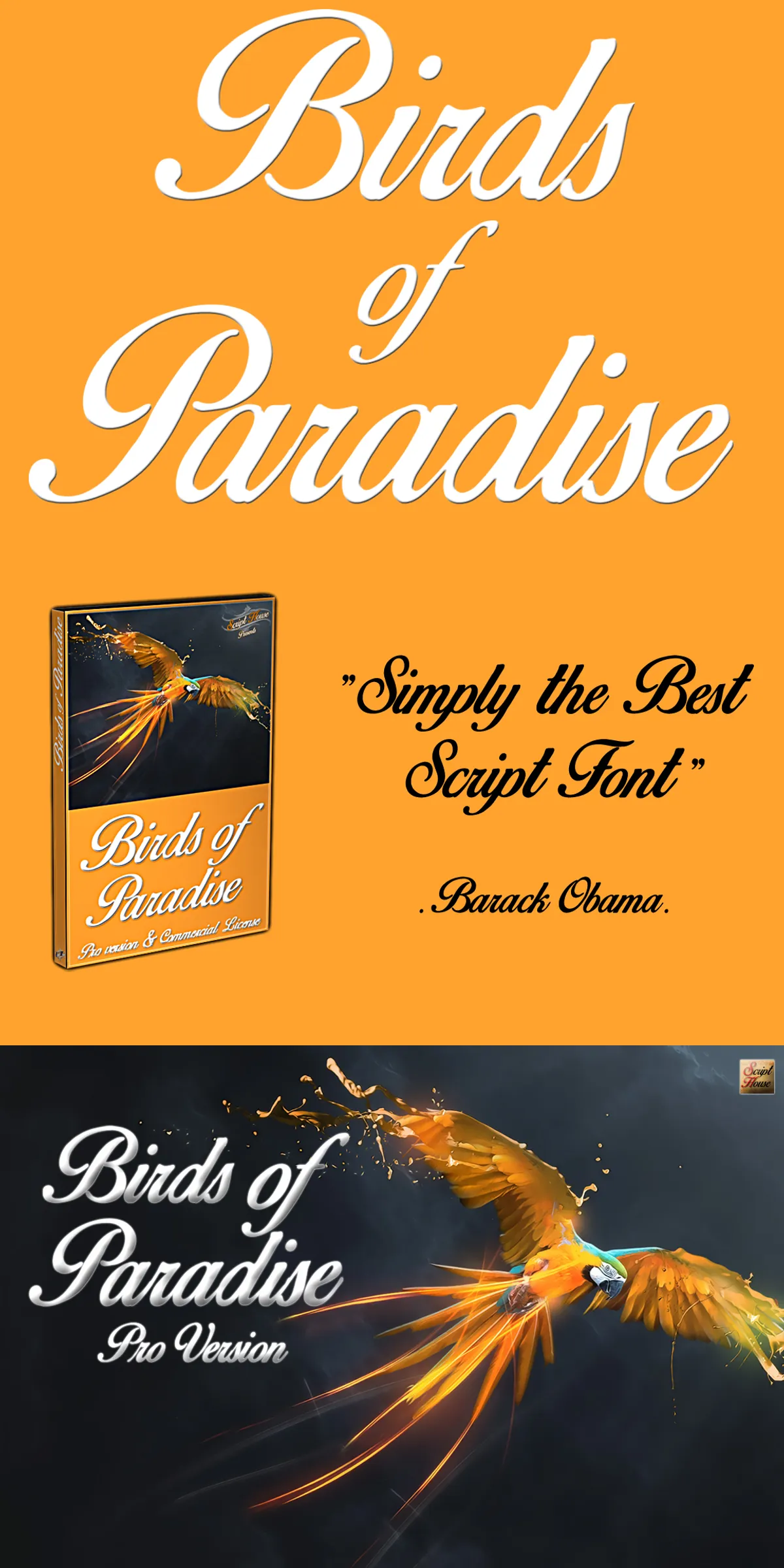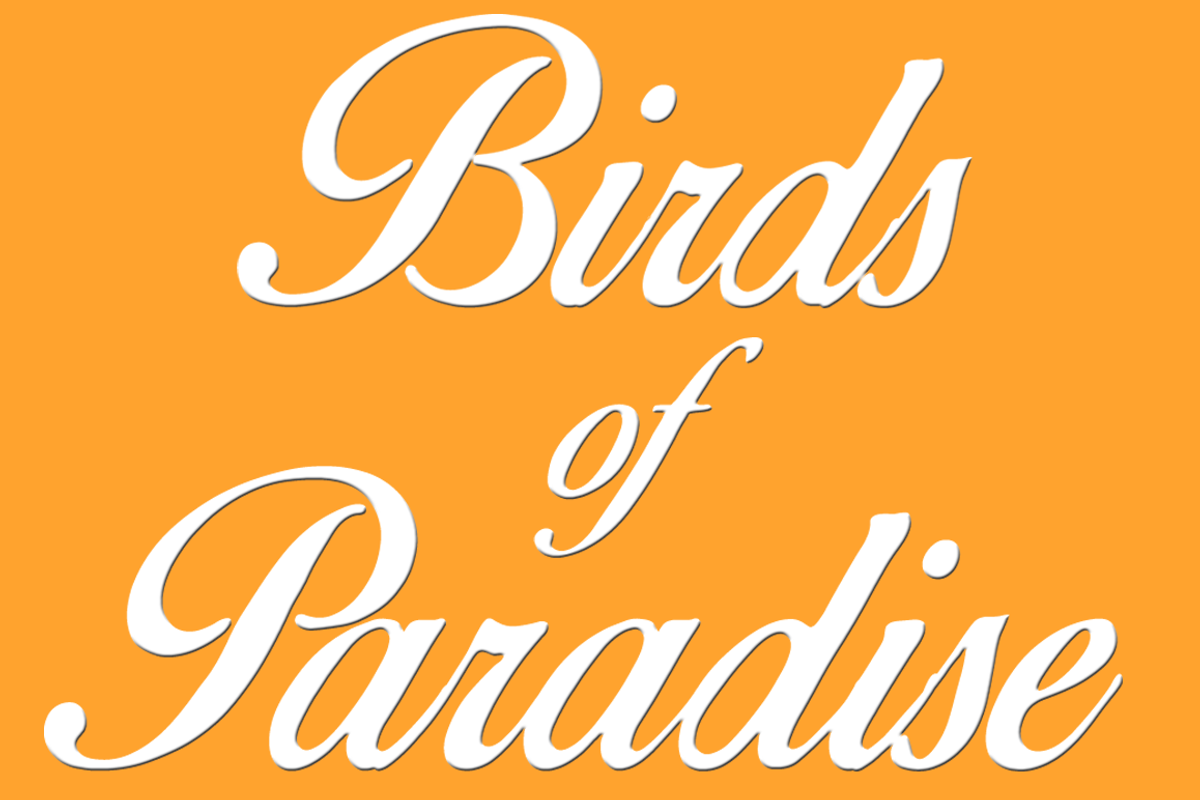
Step into the bold, expressive world of Birds of Paradise Font — a majestic digital revival of a classic 1975 creation by Al Elliot, reborn with precision and passion by Scripthouse. This isn’t just a font update — it’s a renaissance. Every curve, flourish, and dramatic stroke has been meticulously refined to bridge the gap between vintage charisma and today’s design demands. Whether you’re crafting a luxury brand identity, designing an avant-garde poster, or adding flair to editorial layouts, Birds of Paradise commands attention with fearless elegance and timeless flair.
Origins in Legend: From 1975 to a Digital Renaissance
Born in the vibrant graphic culture of the 1970s, Al Elliot’s original Birds of Paradise captured the era’s love for dramatic, hand-crafted lettering. Now, Scripthouse has brought it back to life with modern technical excellence — conserving its soul while expanding its reach. The revival includes enhanced spacing, refined metrics, and new OpenType features, ensuring the font performs flawlessly across platforms, software, and applications. This is vintage inspiration, upgraded for the 21st century.
A Font with Personality: Dramatic, Confident, Uniquely Expressive
Birds of Paradise doesn’t just announce itself — it arrives with a flourish. Its bold, exaggerated serifs, dynamic swashes, and sweeping curves give each character a sense of motion and intent. The design balances boldness with elegance, making it ideal for projects that demand authority and soul. Use it to:
- Design standout brand logos with immediate visual impact
- Create striking event posters and concert flyers
- Enhance book covers and magazine spreads with bold typographic drama
- Drive emotion in editorial layouts and digital storytelling
- Stand out in packaging and product launches with high-impact typography
Engineered for Creativity: Advanced Features, Effortless Results
Birds of Paradise is more than style — it’s a toolkit for designers. With full OpenType support, it delivers professional-grade control over your typography.
Ligatures & Stylistic Alternates: Effortless Flow
Enable ligatures in your design software (Illustrator, InDesign, Figma) to unlock seamless, artistically connected letterforms. Over 50 hand-designed ligatures produce fluid, natural transitions between letters — like ‘B’ and ‘y’ forming a single, graceful arc. Stylistic alternates (Ss01, Ss02, Ss03) give you creative variety: choose from sharp contrasts, balanced forms, or more ornate versions to suit your project’s mood.
Accents such as é, ñ, ç, ü, and ß are properly spaced and stylistically consistent. No more broken text or awkward substitutions — just clean, professional typography, regardless of language.